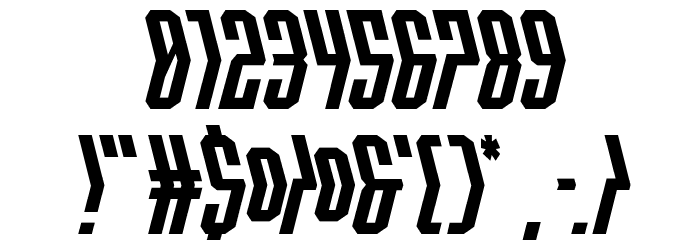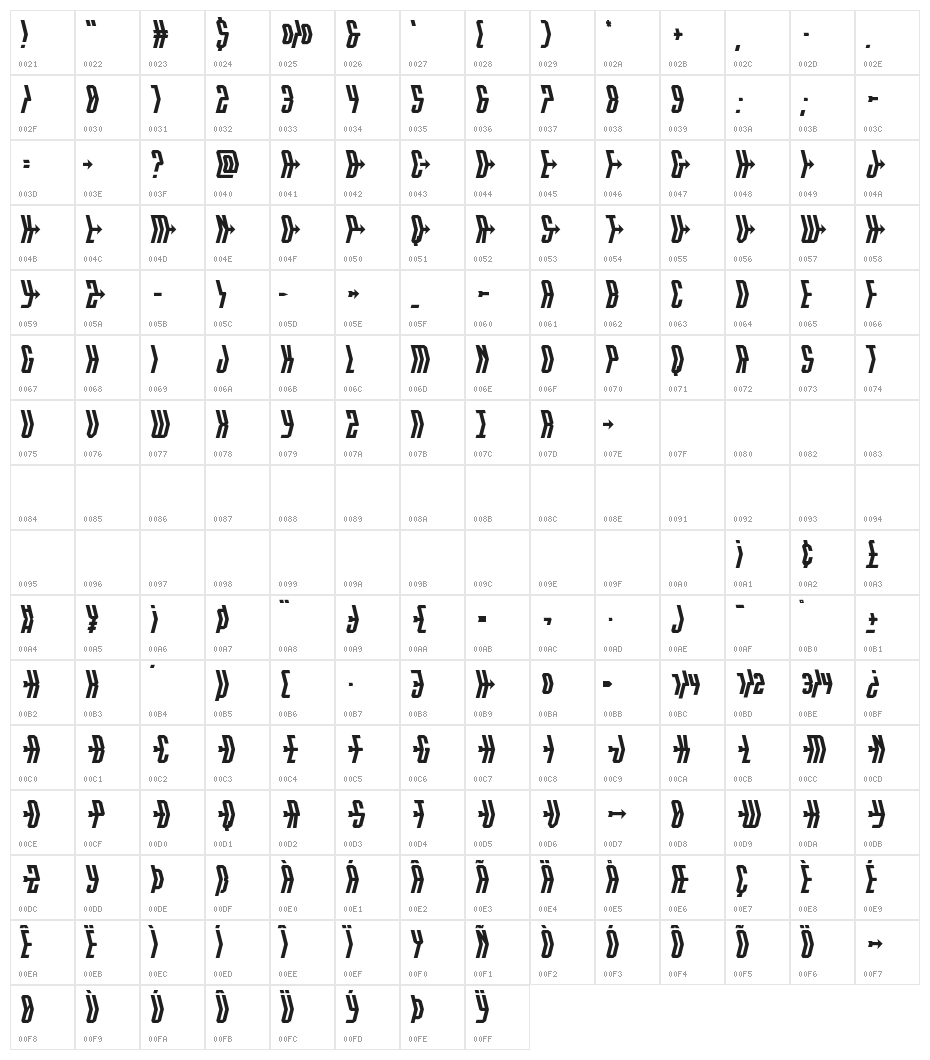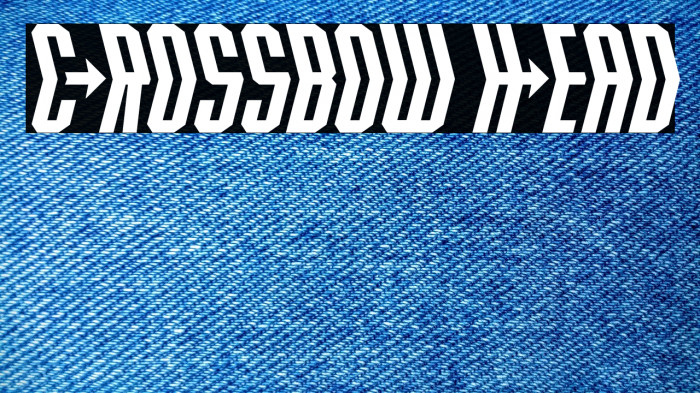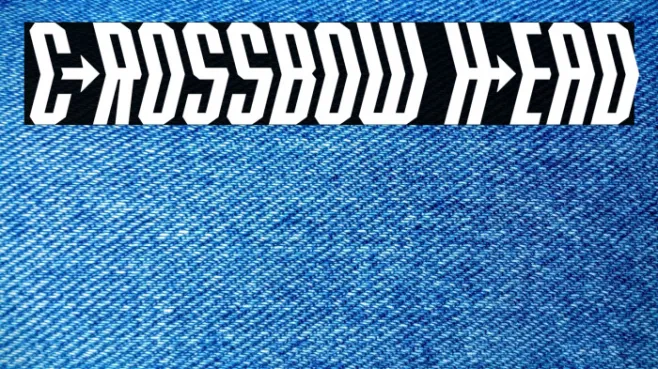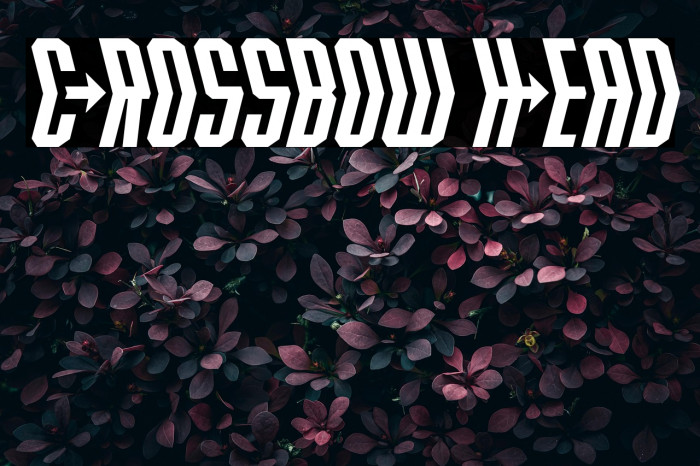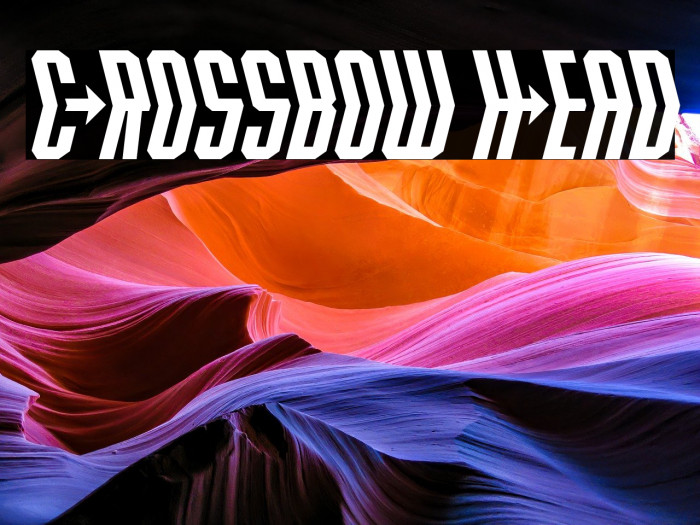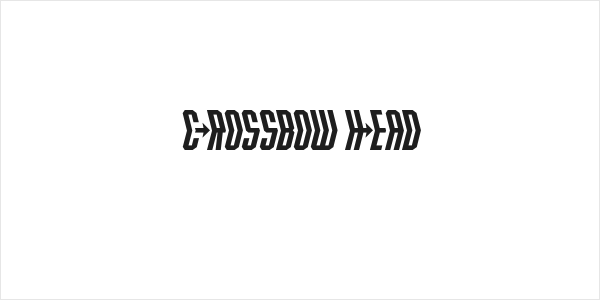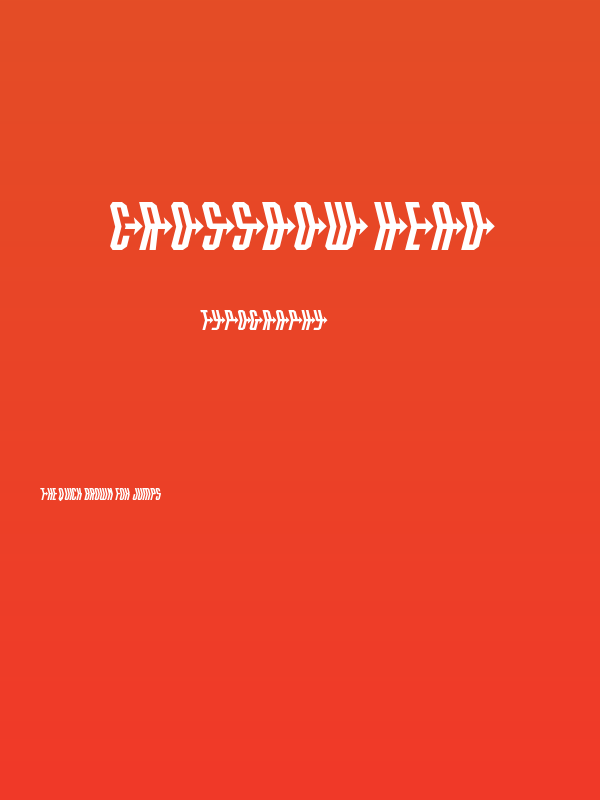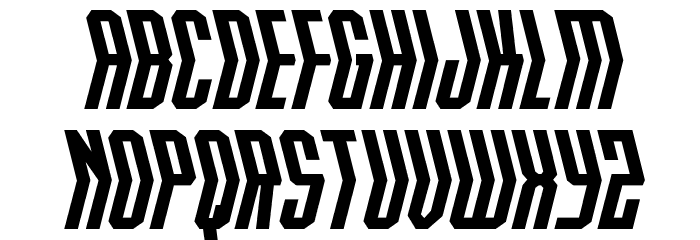
Crossbow Head Font
Crossbow Head Description
This font features a bold and dynamic design with a distinct angular style. The characters are sharply defined with a futuristic and aggressive appearance, making it stand out. Each letter is crafted with precision, featuring pointed edges and a consistent slant that gives the typeface a sense of motion and energy. The uppercase and lowercase letters maintain a uniform style, while the numbers and special characters complement the overall aesthetic. This font is ideal for projects that require a strong visual impact and a modern, edgy feel.
| Proposed Projects | Ideal for sports branding, video game titles, posters, and any project needing a bold, modern look. |